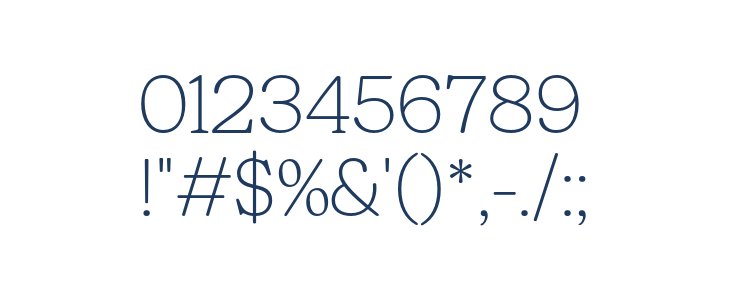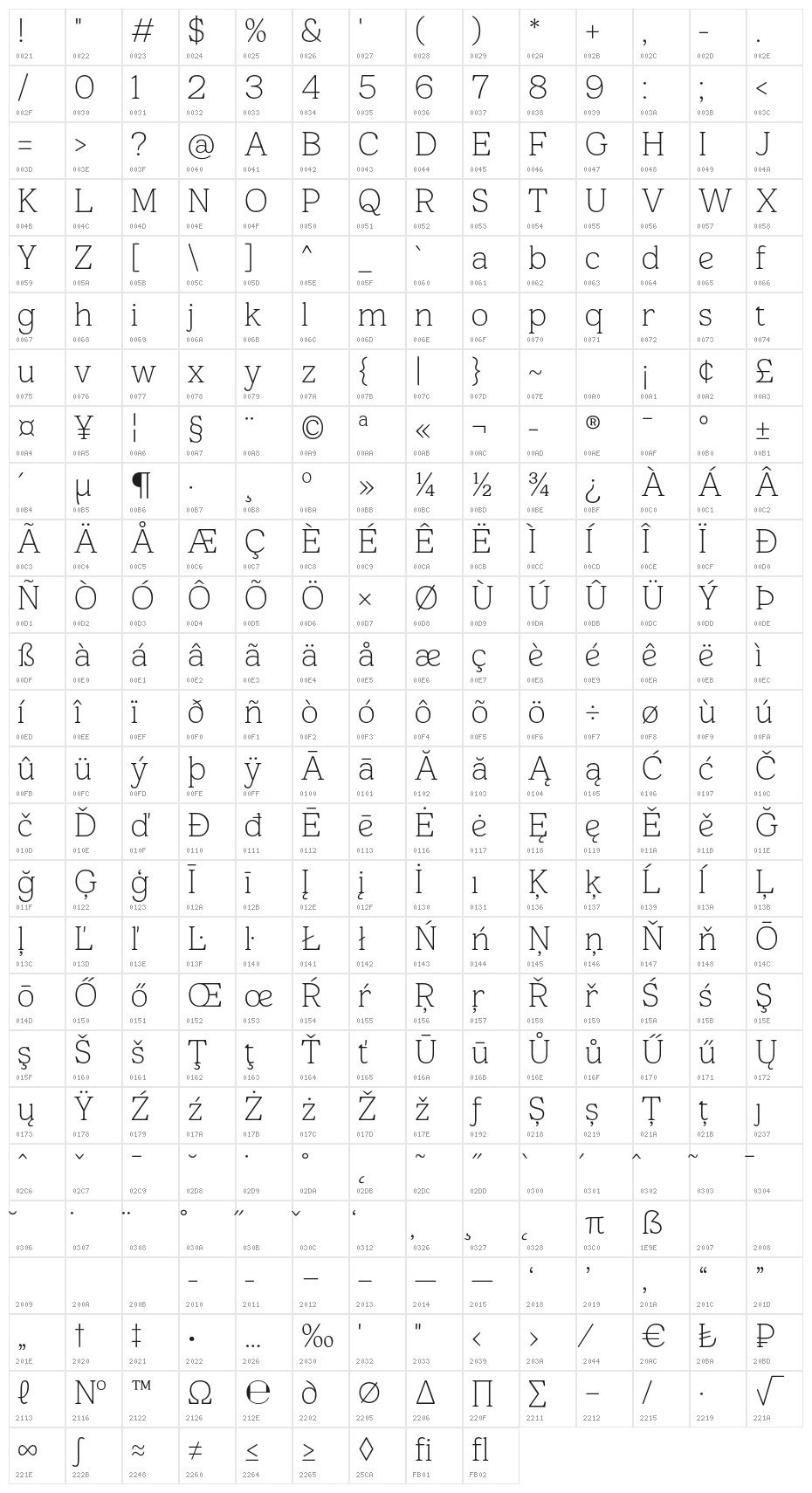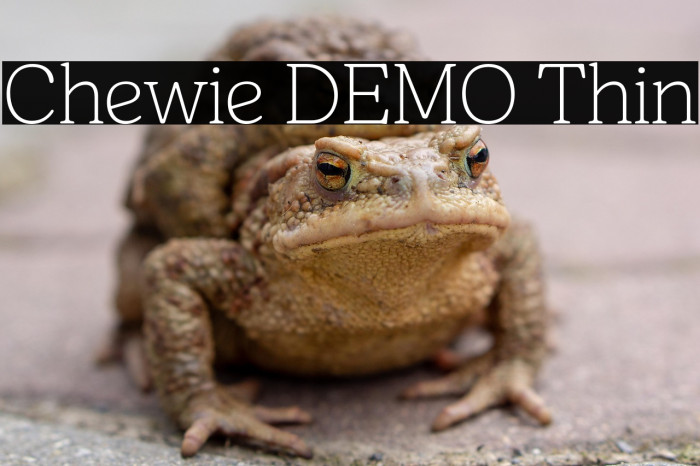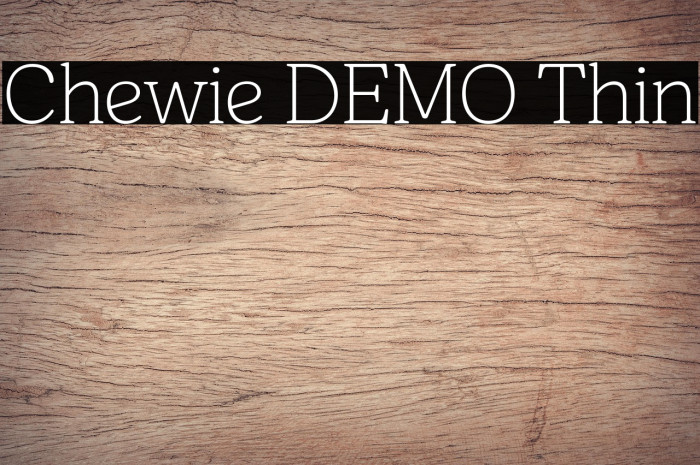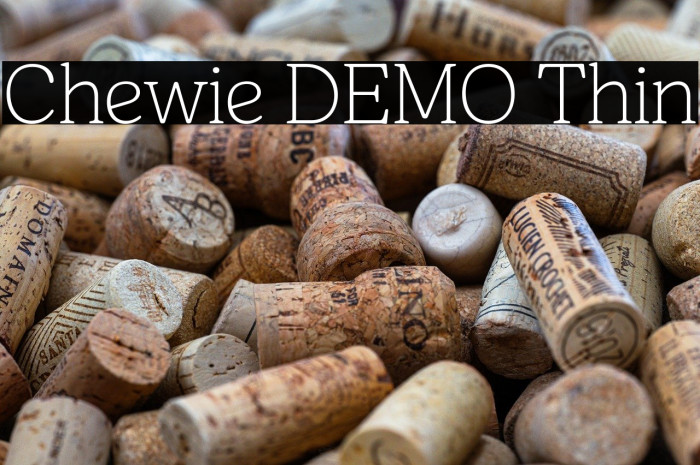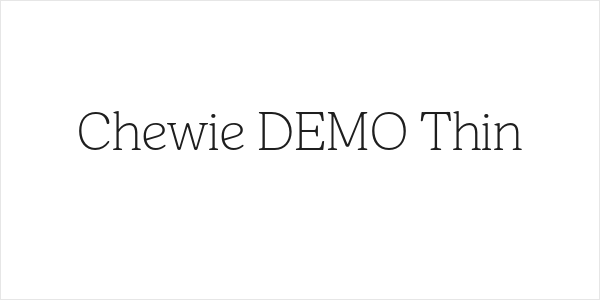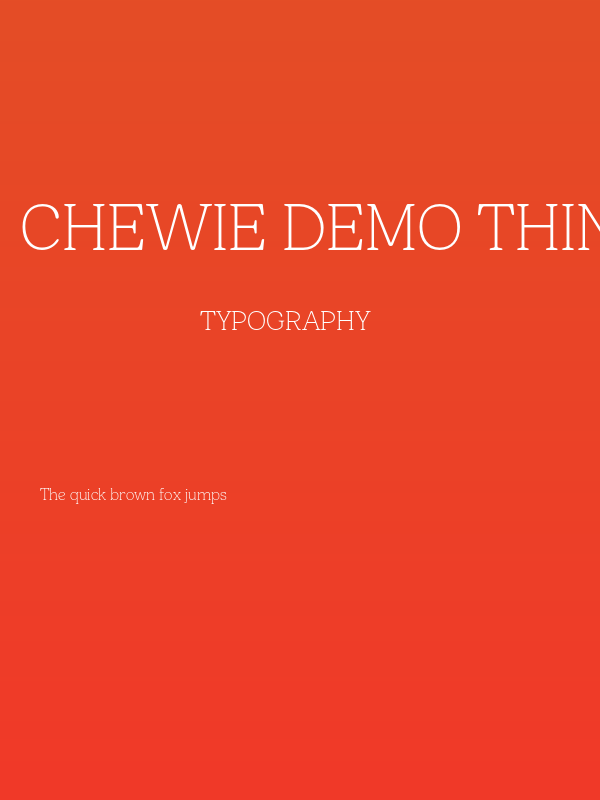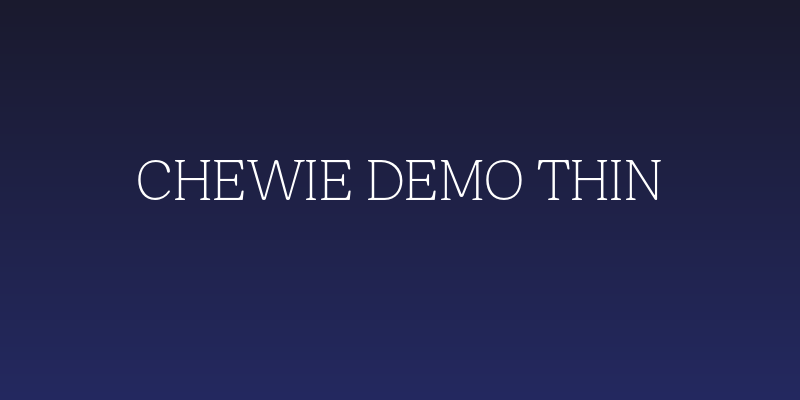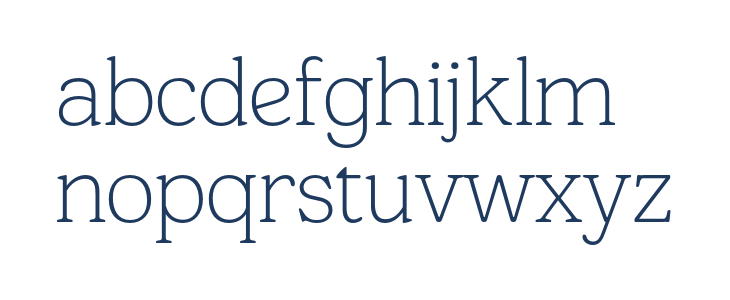
Chewie DEMO Thin Font
Chewie DEMO Thin Description
This font features a clean and modern design with thin, elegant strokes that give it a sophisticated appearance. The characters are well-proportioned, with a consistent line weight that enhances readability. The uppercase letters are slightly taller than the lowercase, providing a balanced look. The numerals are clear and distinct, making them suitable for both display and text purposes. Special characters are included, maintaining the font's cohesive style. Its simplicity and clarity make it versatile for various design applications.